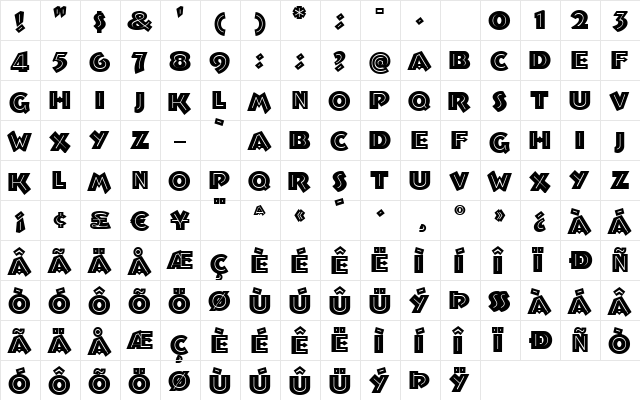
TroglodyteNF Regular
Design Context for TroglodyteNF Typeface
TroglodyteNF is a composed and adaptable typeface that performs quietly and consistently across a wide range of design contexts.